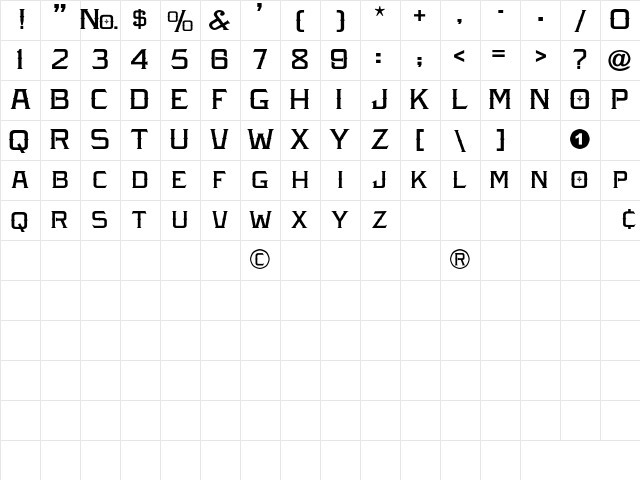
Complete Amarillo Lhf Regular glyph index. Displaying only characters natively supported by Amarillo Lhf Regular font.
Amarillo Lhf Regular is a composed and adaptable typeface that performs quietly and consistently across a wide range of design contexts.